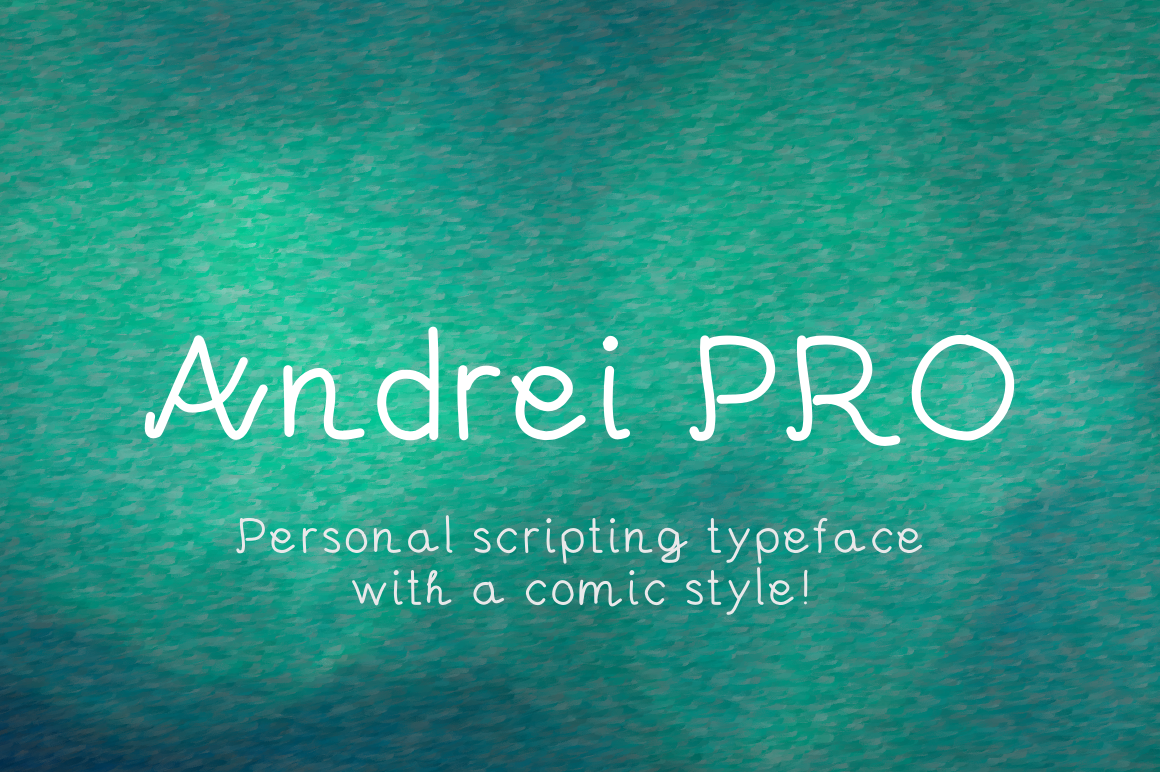
HomeScript FontsAndrei Font Script Fonts Andrei Font FacebookXPinterestWhatsApp About Andrei Font Andrei font is a personal handwriting type. Andrei font can be used to give a nice comic touch to your prints. DOWNLOAD ON CREATIVE FABRICAThis font is sold and delivered by Creative Fabrica. Font Canyon may earn a commission if you buy through this link. People also explored Aluna French Font Calina Font Eclipse Font Bothside Font Komic Kook Font Beriva Font Decubo Font Appear Font Kevin Font 306 0 TagsAndrei Font Previous articleThe Illusion of Beauty FontNext articleOceania Font LEAVE A REPLY Cancel reply Comment: Please enter your comment! Name:* Please enter your name here Email:* You have entered an incorrect email address! Please enter your email address here Website: Save my name, email, and website in this browser for the next time I comment. Personal Use Free Sweet Cake Personal Use Free Read more about this font Drip October Font Personal Use Free Read more about this font Better Together Duo Personal Use Free Read more about this font BD Geminis Personal Use Free Read more about this font BLOG Elegant Wedding Invitation Fonts – Handwritten & Script Fonts Elegant Wedding Invitation Fonts Your wedding day is one of the most important moments of your life, and every detail matters—including your invitation design. Our... Best Fonts for T-Shirt Design – Top 2025 Picks Free vs Paid Fonts: Why Investing in Premium Fonts Is Worth It Transform Your Website: Elevate Your Typography with 7 Best Web Font Generators